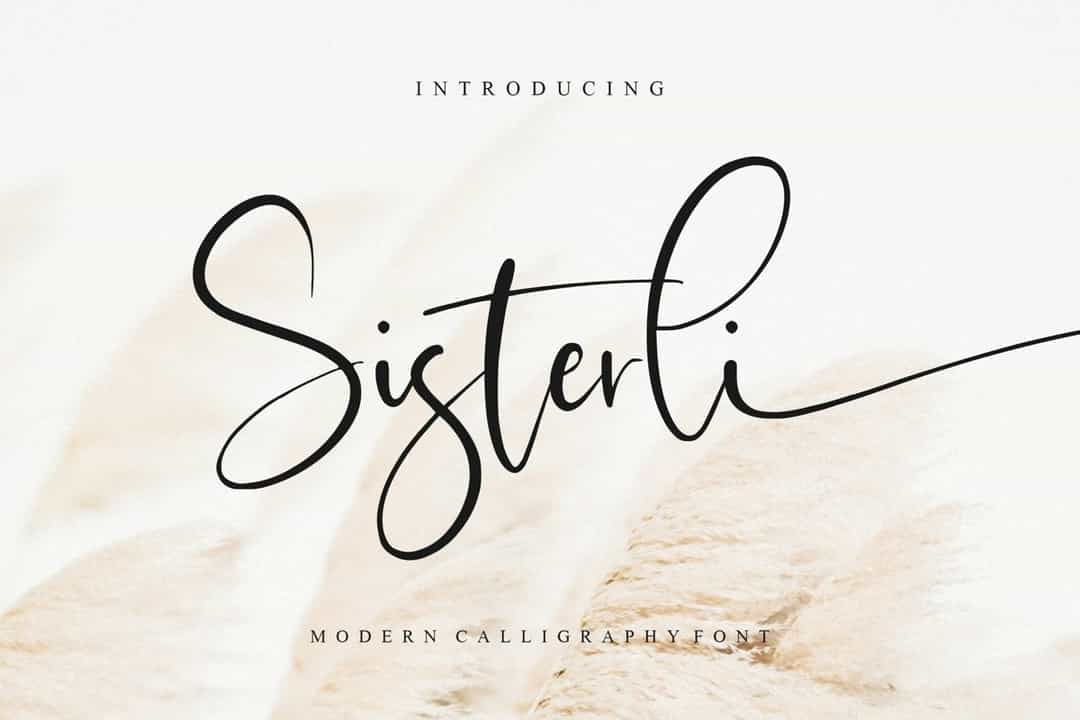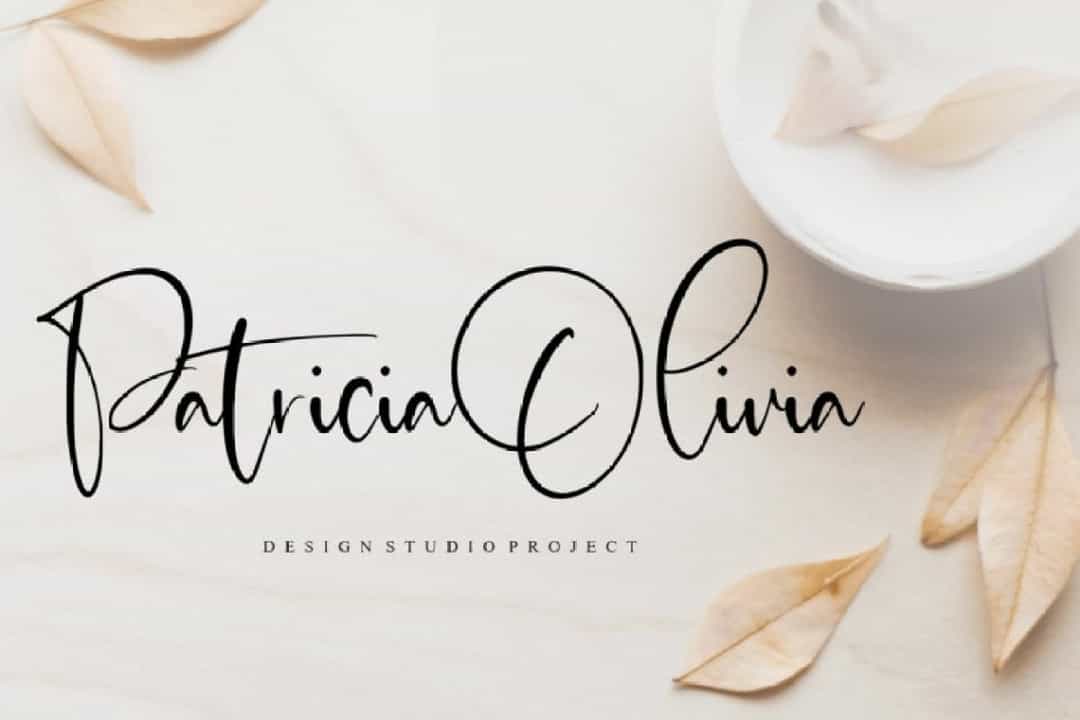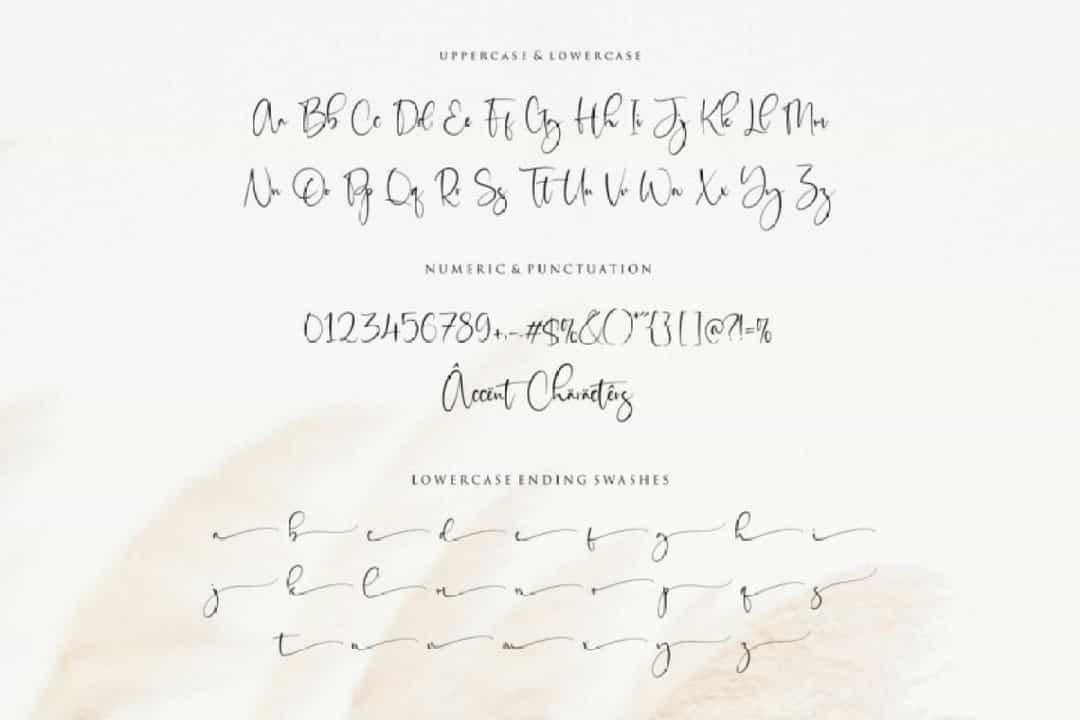
Sisterli is a beautiful script font that is beautifully designed for packaging design, branding, magazine, weddings, social media platforms and other purposes to make an impact. Sisterli accepts TTF and OTF formats as well as multiple languages. Also, the lower case font includes decorative modifications of Ligatures Symbols Punctuation Type Features.